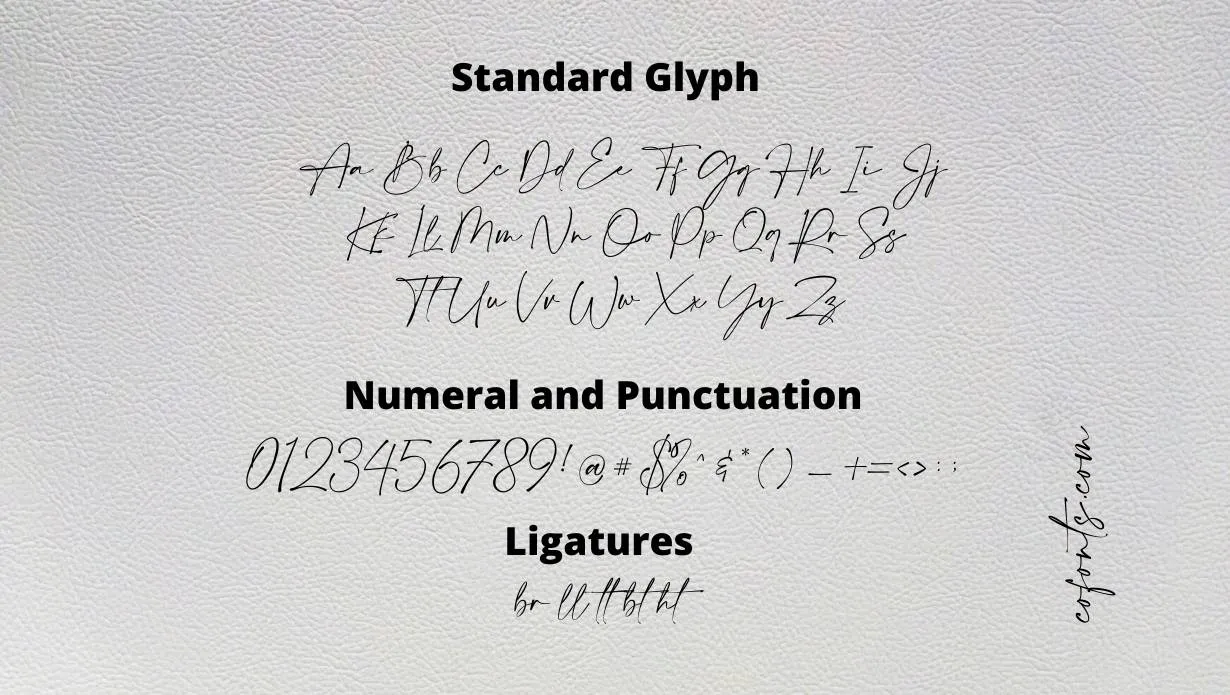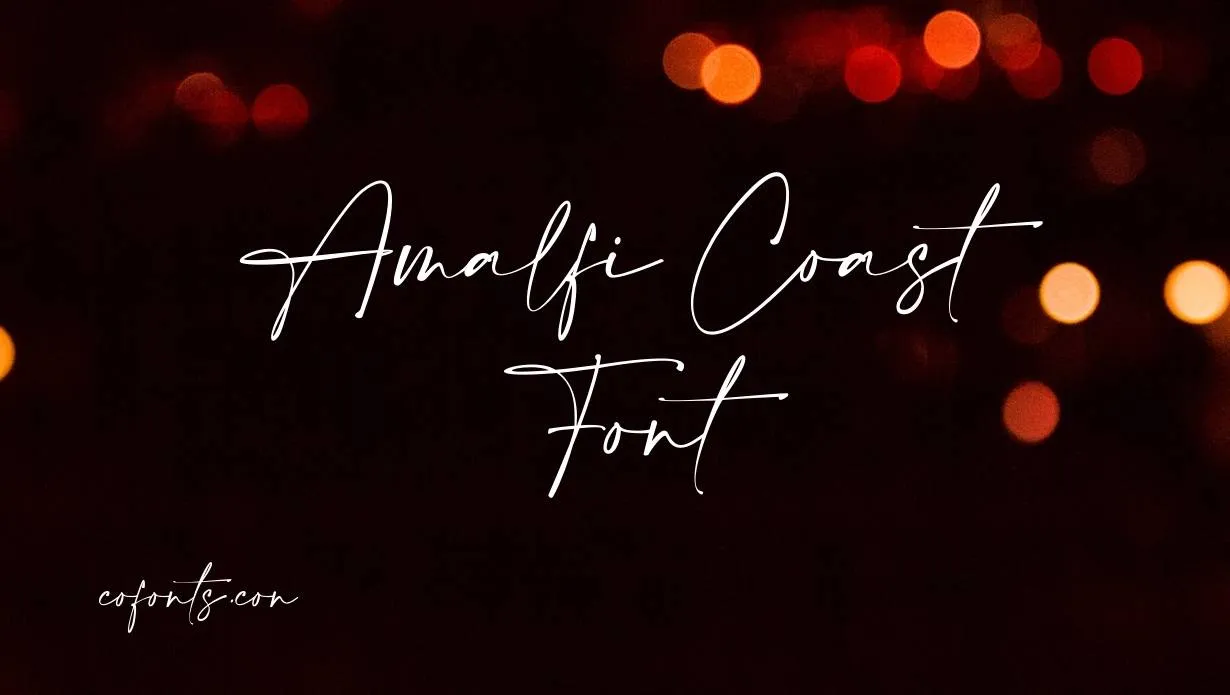
Amalfi Coast Font Free Download is a modern typeface available in multiple variants and styles.
- Amalfi Coast Font Regular
- Amalfi Coast Font Bold
- Amalfi Coast Font Italic